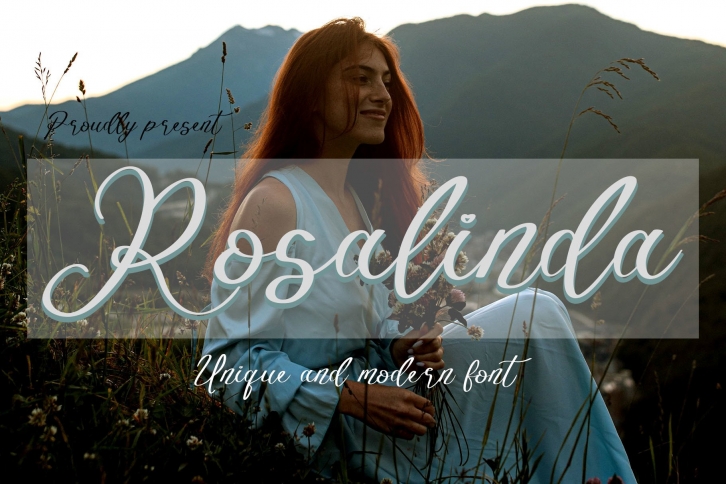
Rosalinda is a thin lettered and beautiful handwritten font. Its distinct and well rounded letters make this font a masterpiece. Fall in love with its incredibly versatile style and use it to create spectacular designs!